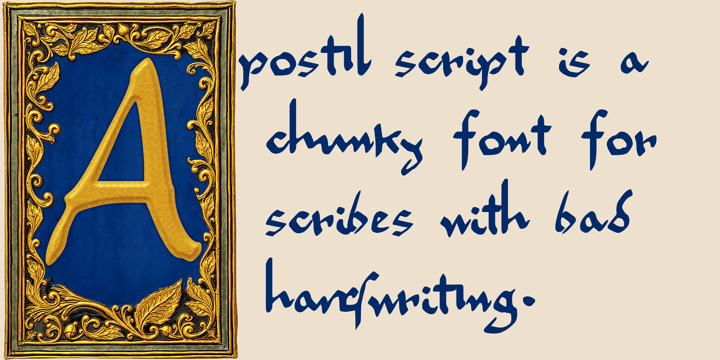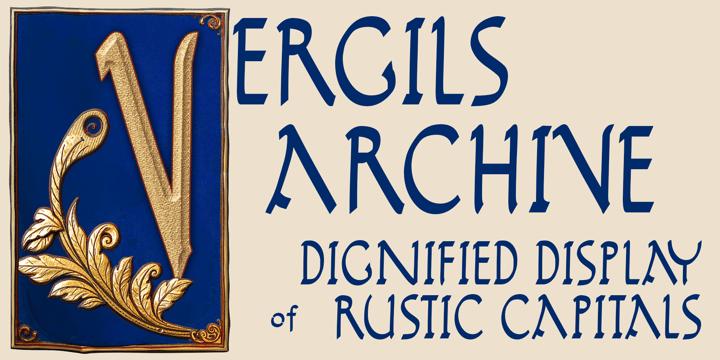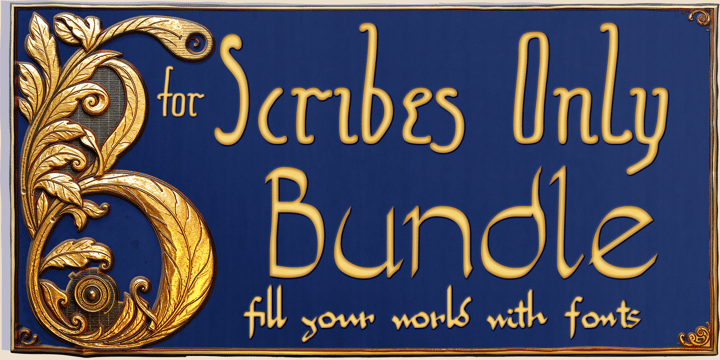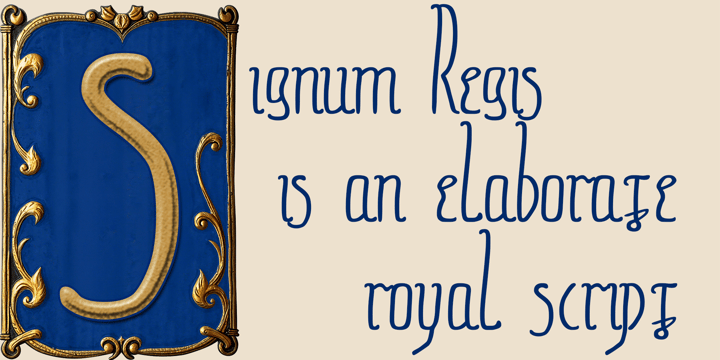
For Scribes Only
This bundle is For Scribes Only: three distinct fonts inspired by the writing of medieval scribes. Vergils Archive is a careful and distinguished display font based on the Roman writing style called Rustic Capitals. Signum Regis is based on the flowery and ornate signatures of European Kings during the medieval period. Finally, Apostil Script is a cramped, chunky, messy handwriting typeface based off the notes that scholars would write in the margins of their favorite books. This combination is a perfect addition to add depth to the props and accessories for your D&D Campaign or Cosplay. We know you love worldbuilding... now fill your world with fonts!